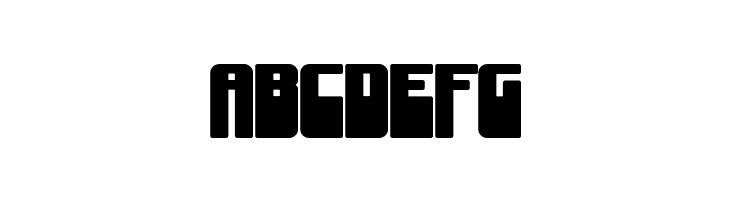
Silian Rail PERSONAL USE Light Italic Font
- Font: Silian Rail PERSONAL USE Light Italic
A bold, geometric font with blocky, modern characters.
A bold, geometric font with a playful, modern aesthetic and three-dimensional effect.